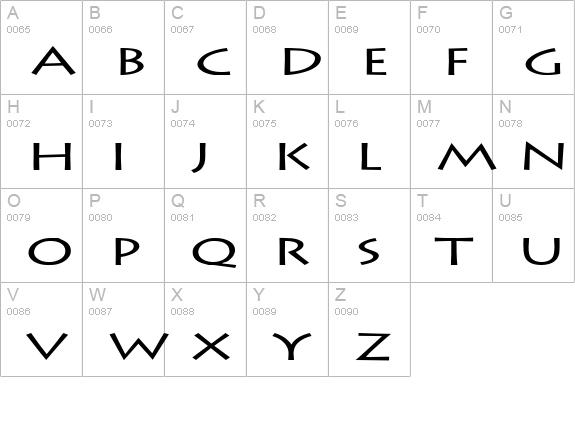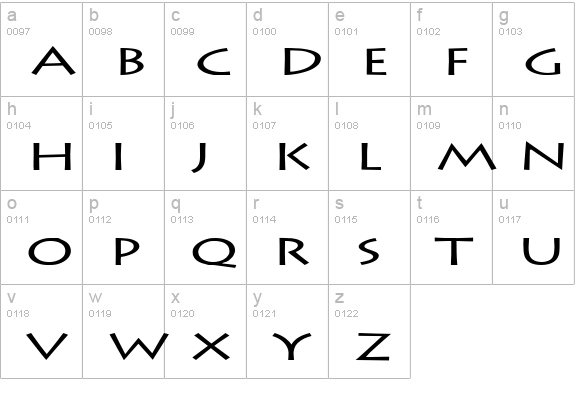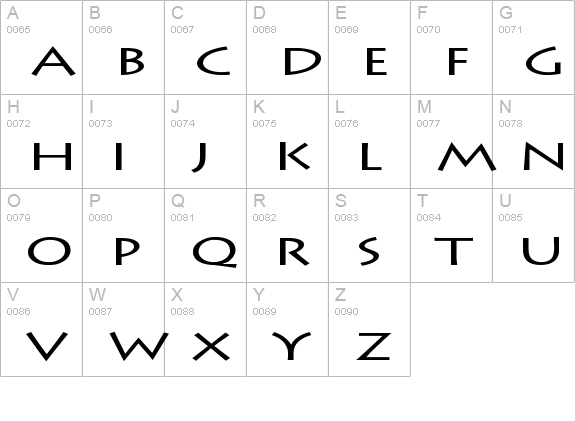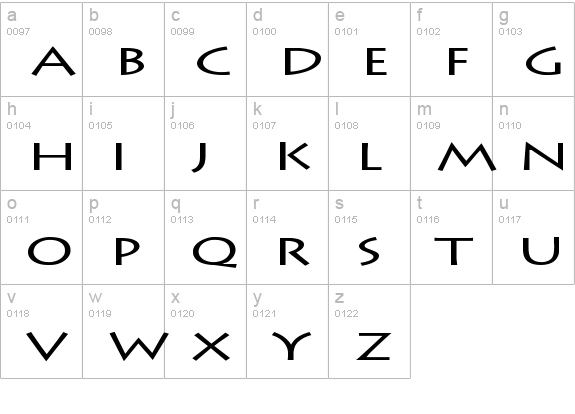
Liste Extended Normal Font Details
Liste Extended Normal is the standard, neutral, extended-width variant in the Liste typeface family \xE2\x80\x94 well suited to general body text, paragraphs, and standard typographic work.
Liste Extended Normal is a modern and versatile typeface that combines elegance with readability. With its clean lines and balanced proportions, this font is perfect for a wide range of design projects, from branding and packaging to editorial layouts and web design. The extended character set includes a variety of special glyphs and ligatures, making it a versatile choice for multilingual projects. What sets Liste Extended Normal apart is that it is available for free download at FontsMarket.com. This means that you can easily access and use this high-quality font without any cost, making it a valuable addition to your font library. Download Liste Extended Normal today and elevate your design projects with its sophisticated and contemporary aesthetic.